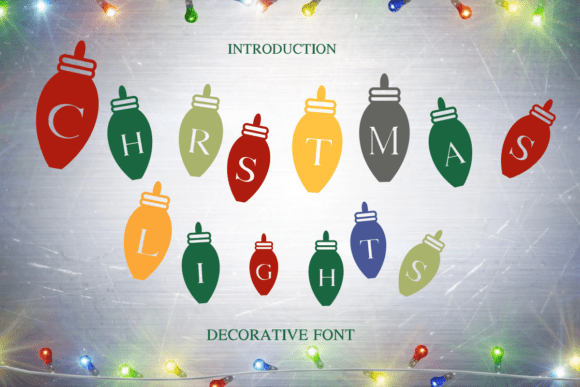
Christmas Lights Font
Christmas Lights is a decorative display font that captures the joyful spirit of the holiday season in every letter. Each character is beautifully encased in a festive bulb design, blending playful shapes with a clean, classic style that glows with holiday cheer.
With its charming balance of creativity and clarity, this font is perfect for Christmas cards, party invitations, seasonal posters, personalized gifts, Cricut projects, and bright social media graphics. Whether you’re crafting holiday decor or designing cozy winter branding, Christmas Lights adds a delightful sparkle that makes every project shine with festive magic.